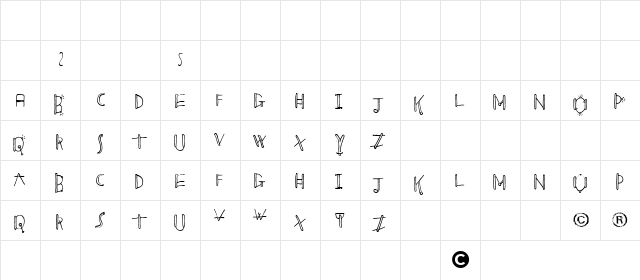
Blinkers Regular Font Preview
Blinkers Regular
Design Context for Blinkers Typeface
Blinkers is a composed and adaptable typeface that performs quietly and consistently across a wide range of design contexts.